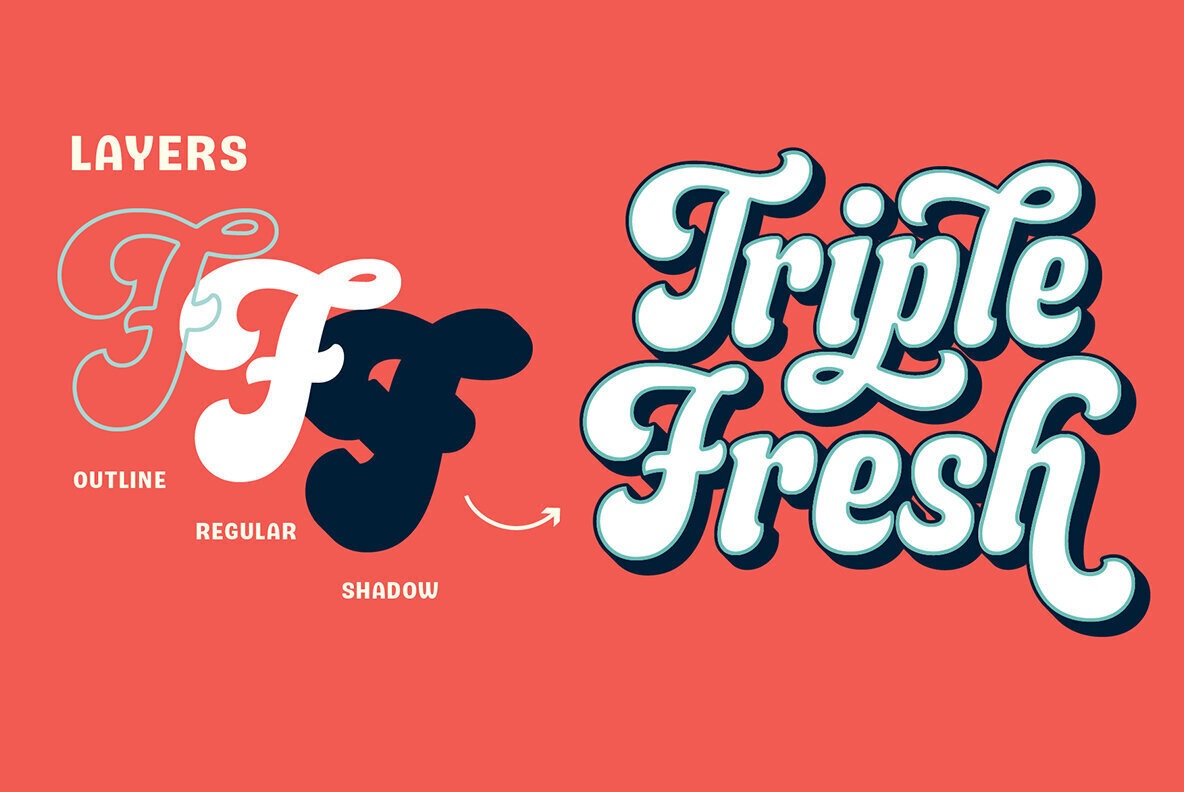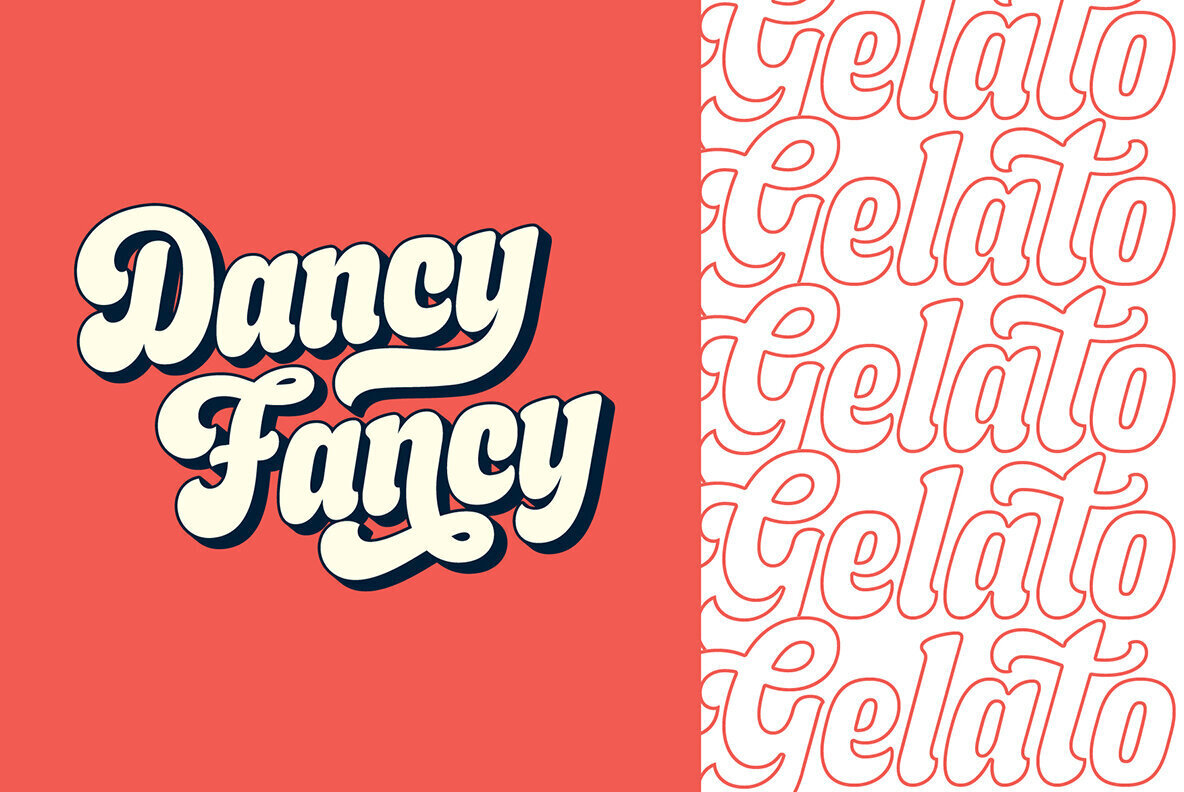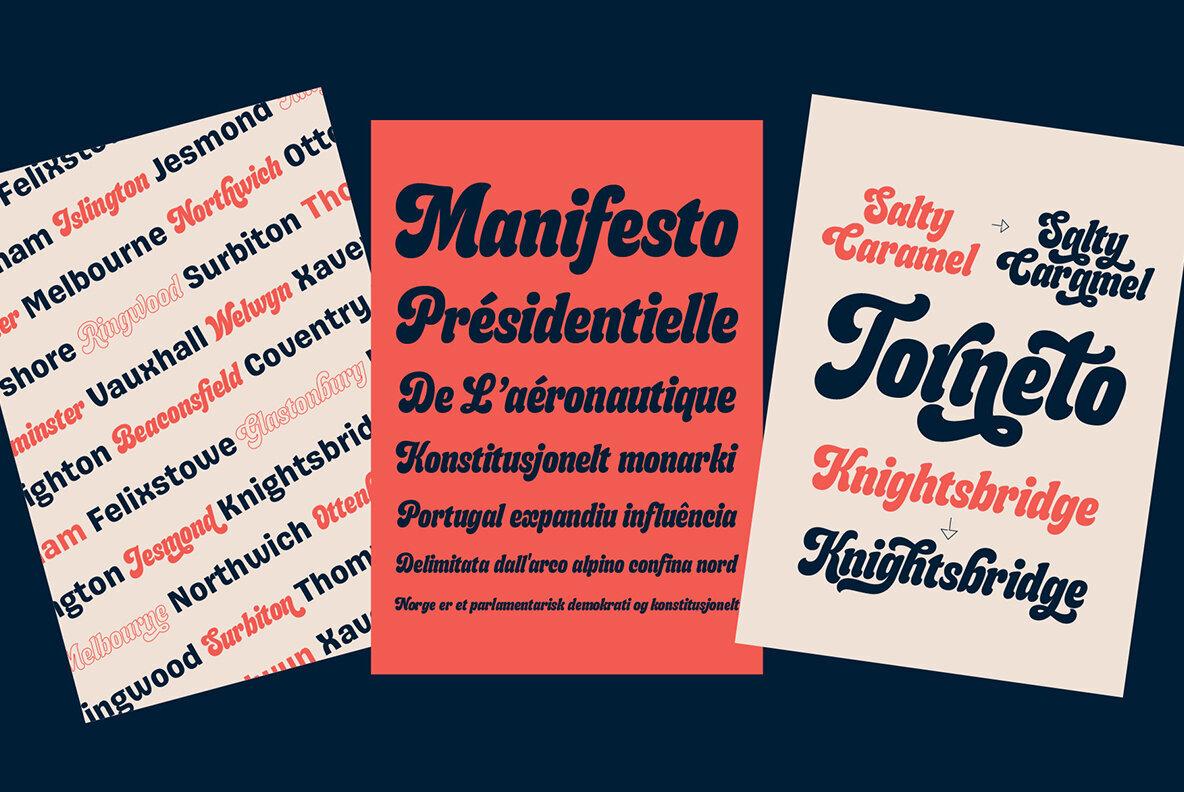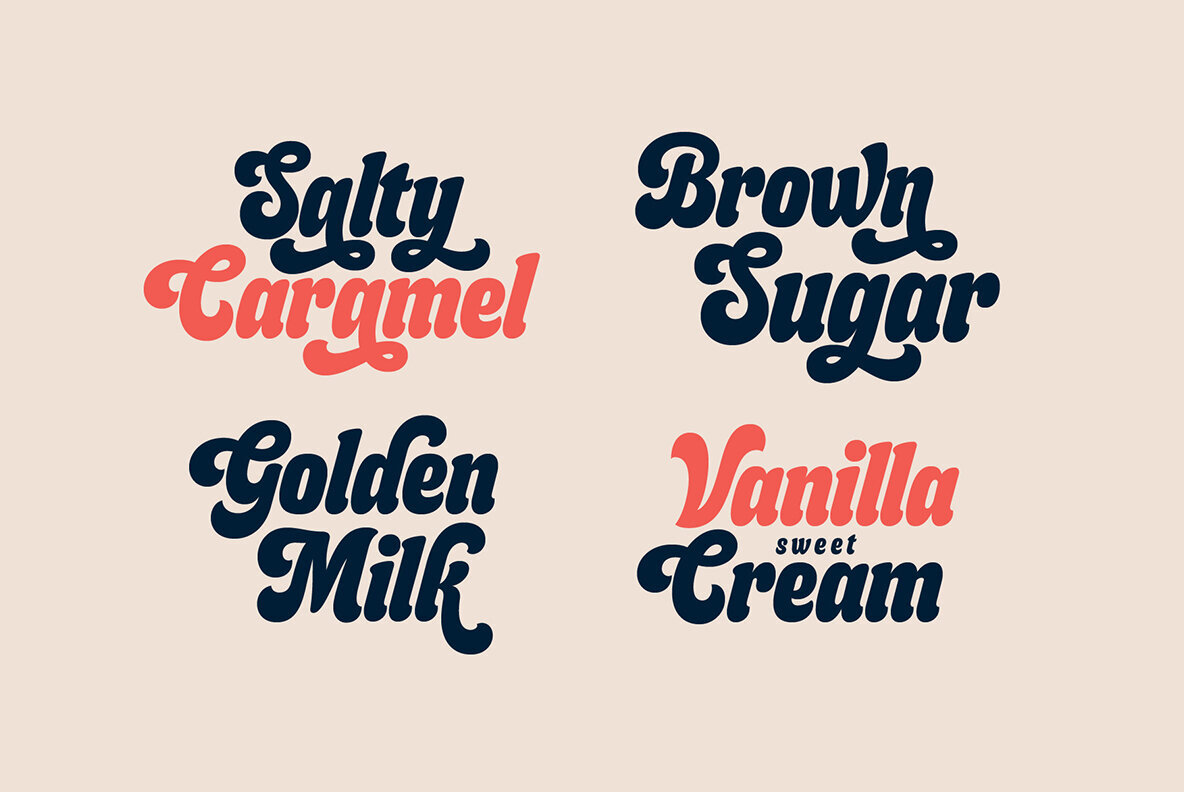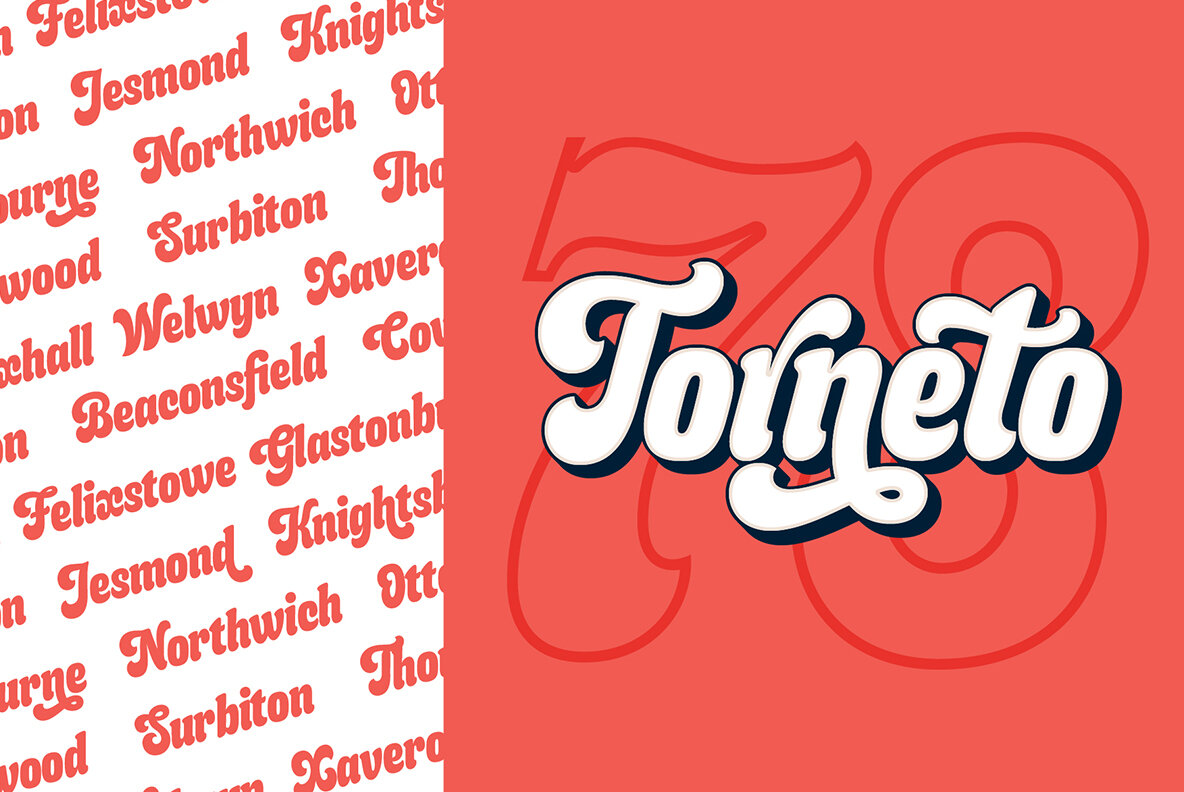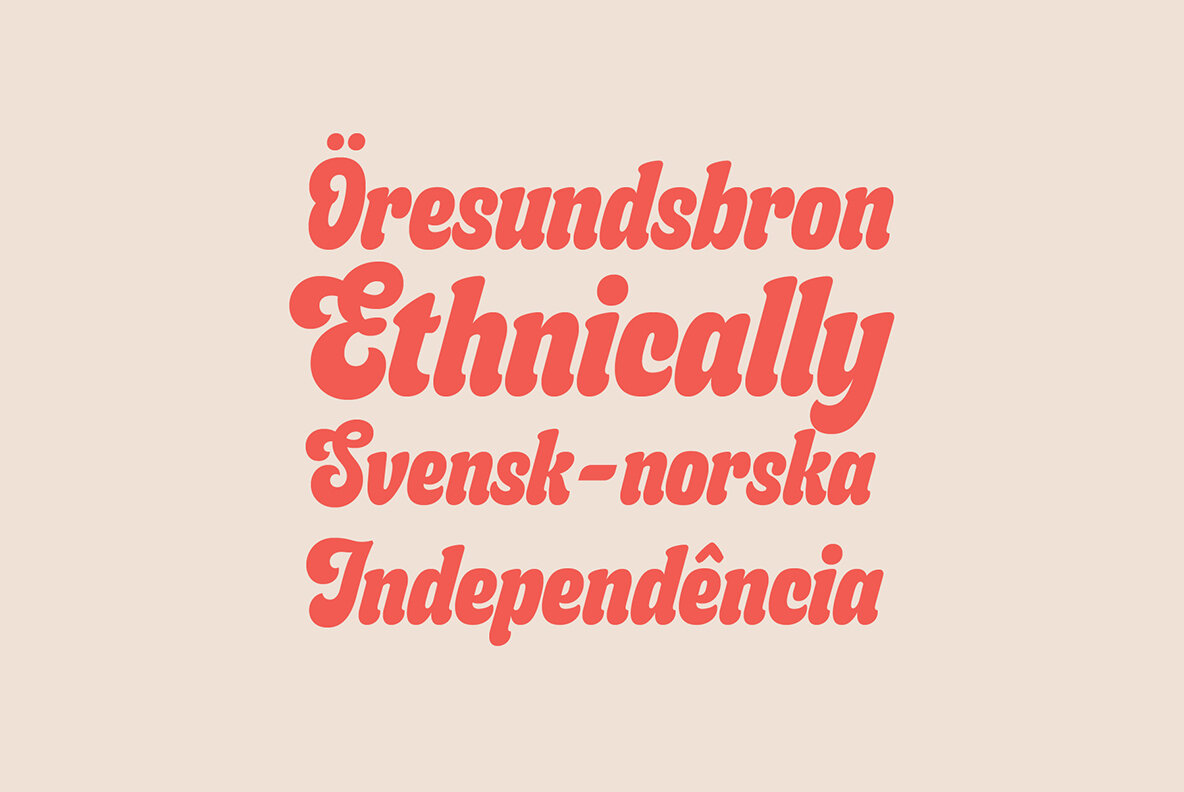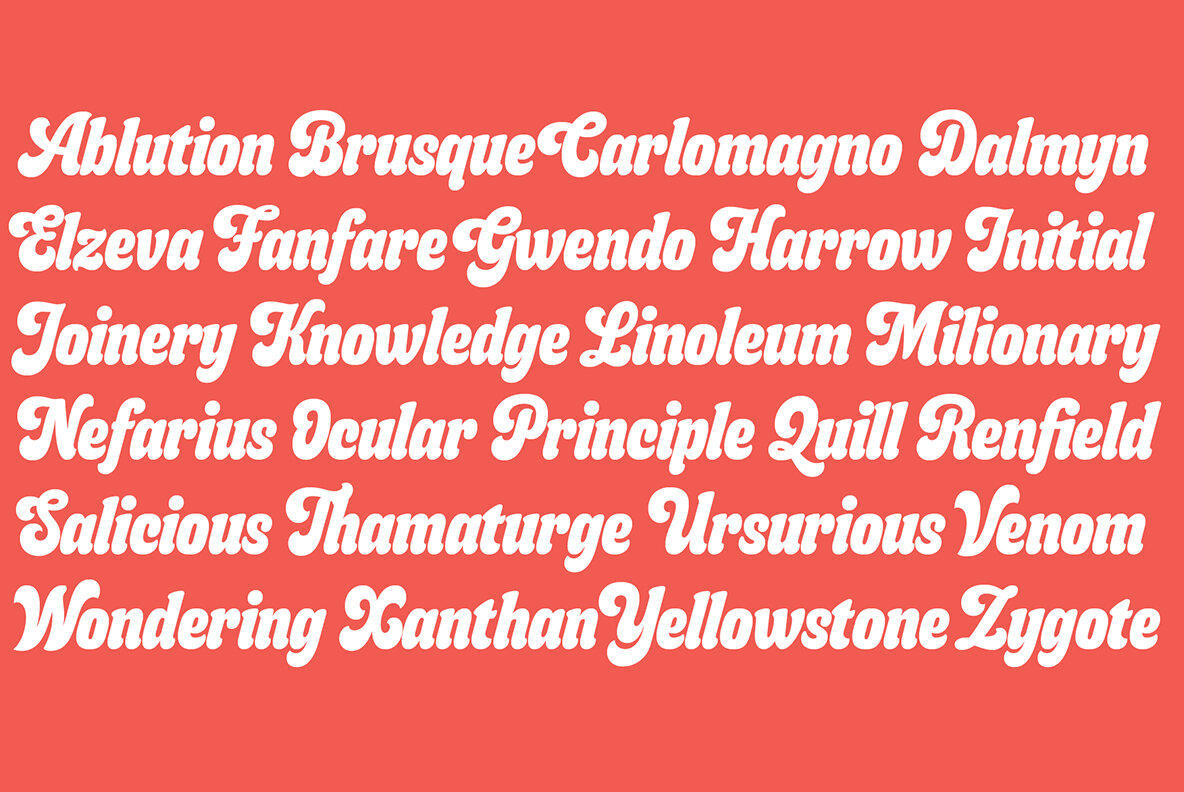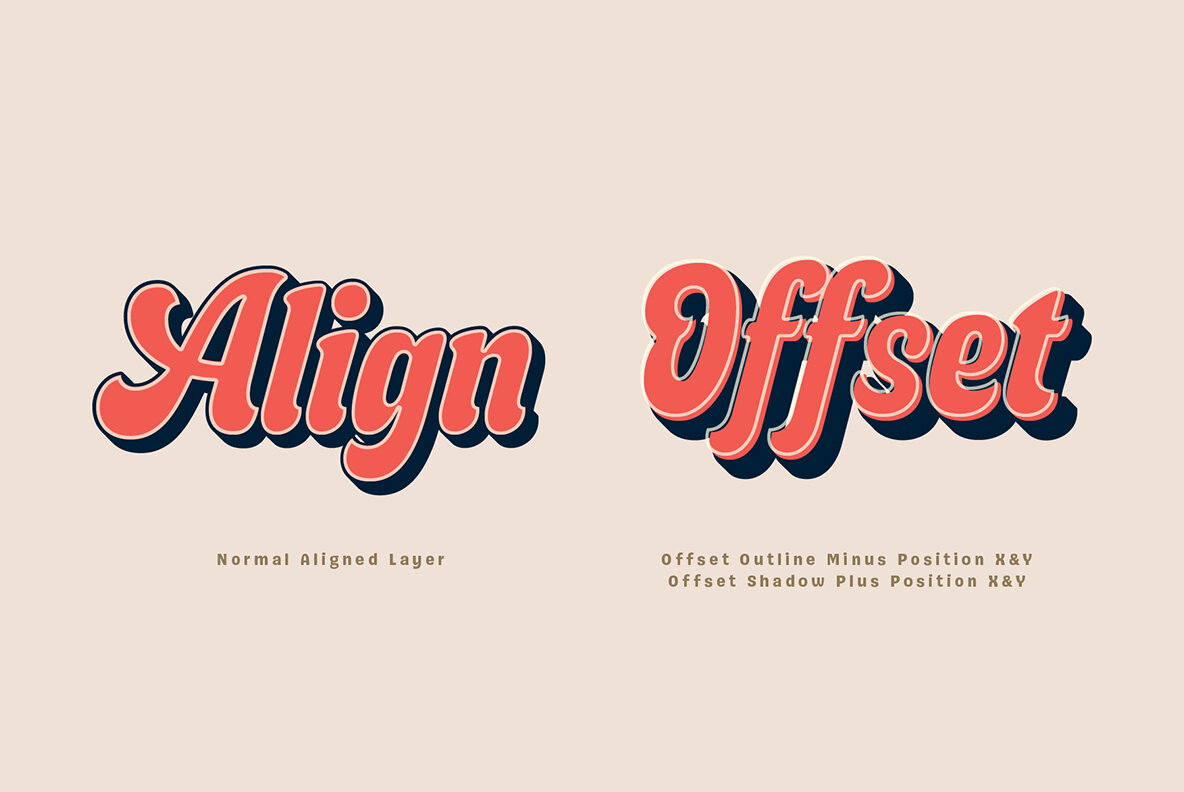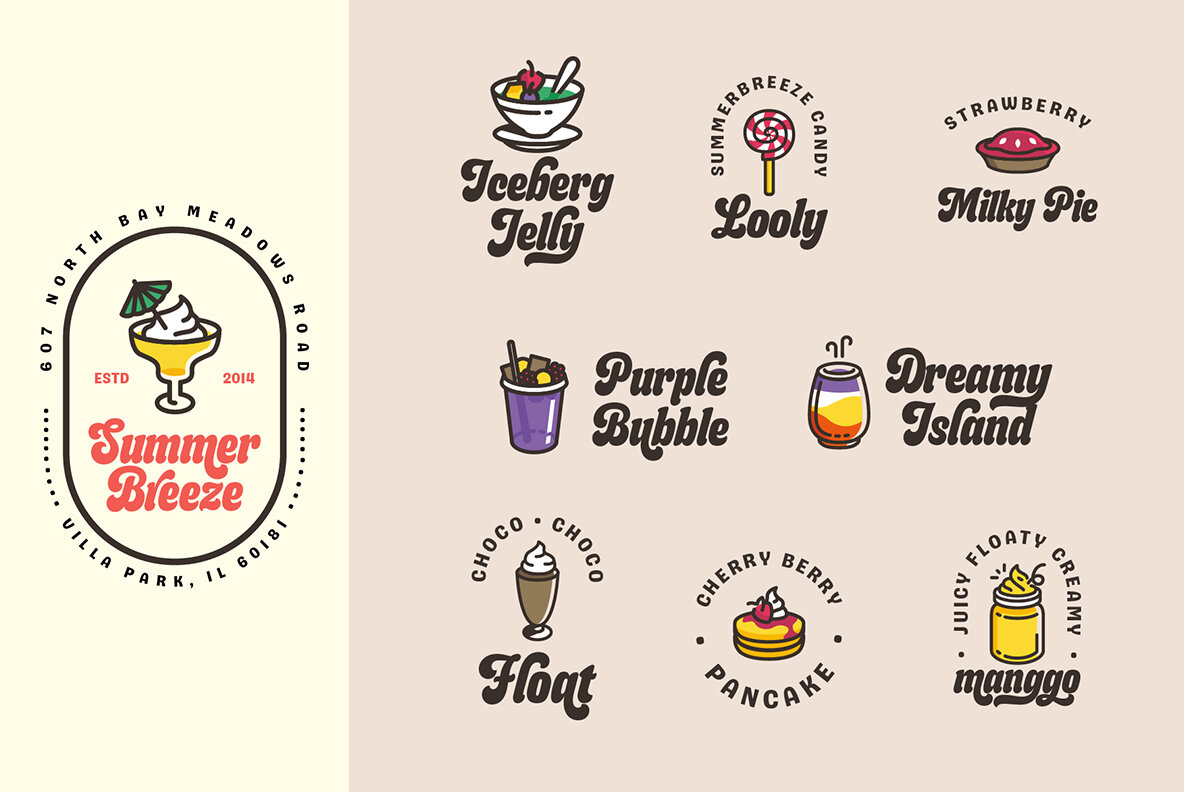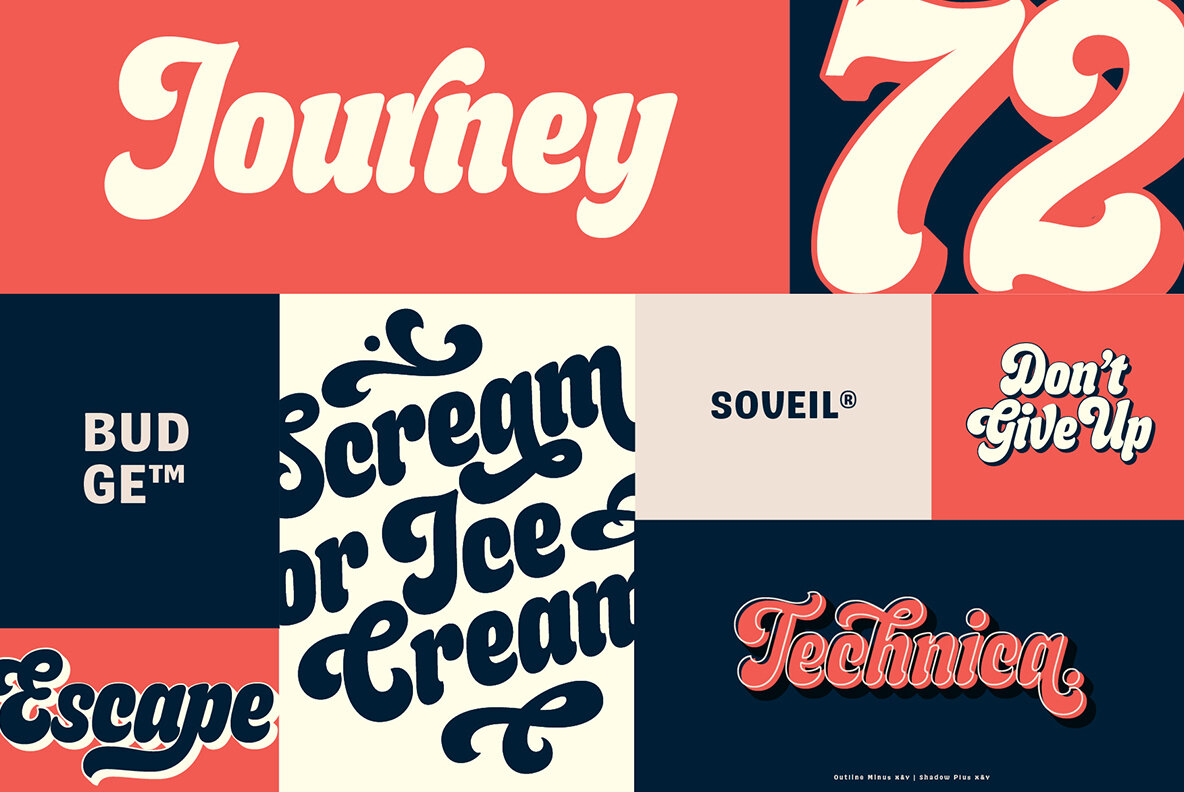
Budge Font
Budge Pair Regular
Budge Regular
Budge Line
Budge Shadow
Budge is a newly crafted layered italic typeface inspired by diverse influences, including deserts and beverages. This font combines versatility, fun, cuteness, and beauty, making it a unique choice for various design projects. Budge features beautiful swashes and includes three distinct layers: Regular, Shadow, and Outline. These layers are perfectly fitted to provide more contrast and a bolder title appearance. Every alternate glyph is curated to maintain the font's distinctive characteristics. Additionally, Budge comes with a complementary Sans Serif pair to meet all your design needs. Our design samples demonstrate Budge's application across projects like branding, headers, logotypes, posters, magazines, packaging, and food menus. This showcases Budge's ability to adapt to various design styles.Budge: Layered Italic Typeface with a Versatile Flair
Design Features
Application and Usage